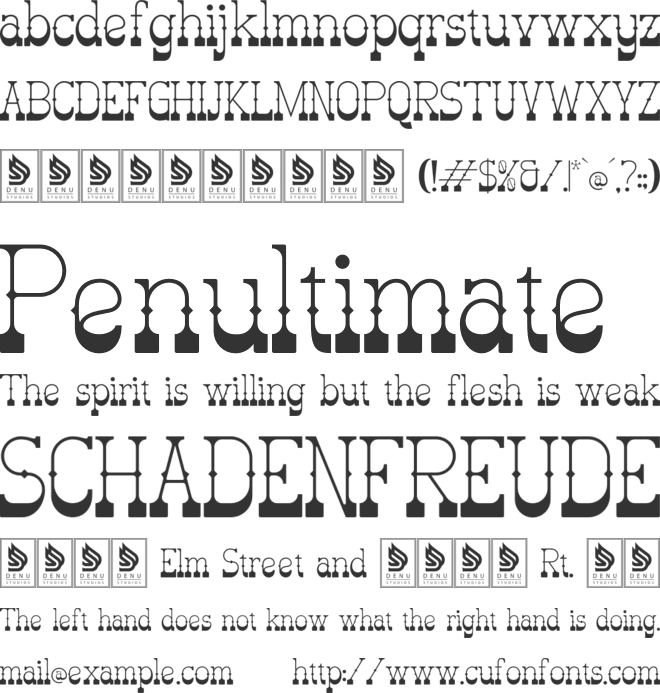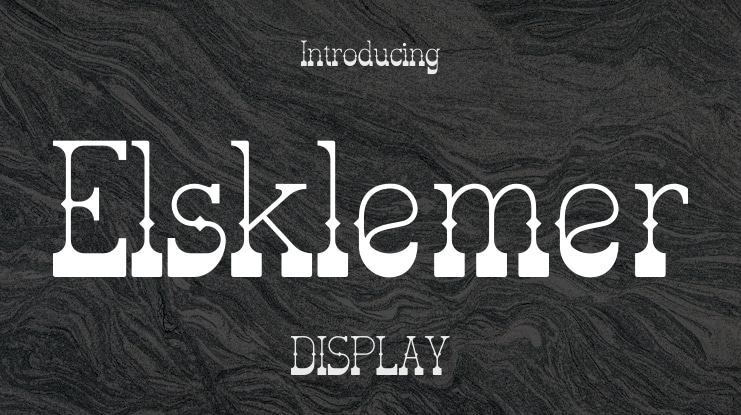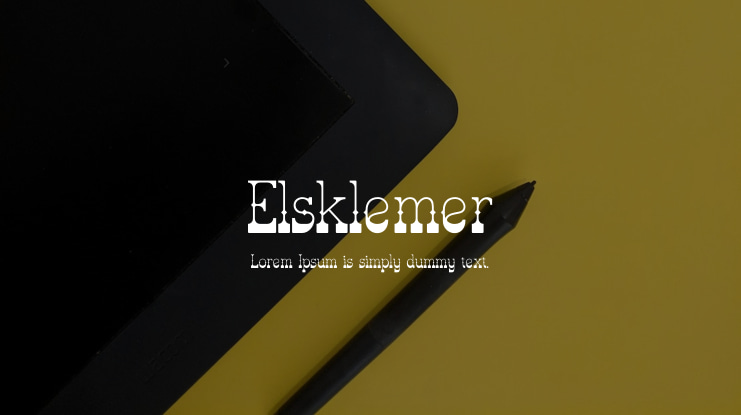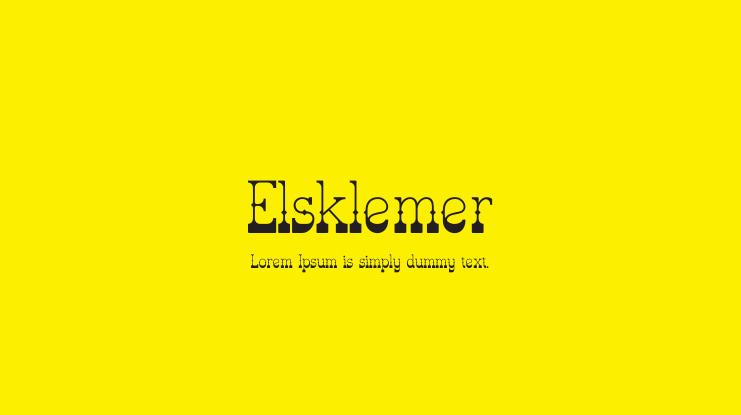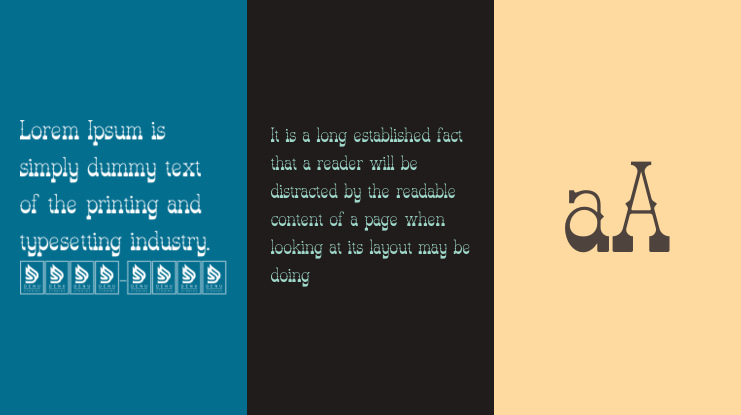
Elsklemer | Western Slab Serif is a versatile font that can be used for various projects including logos, branding, homeware designs, product packaging, quotes, posters, t-shirts, and more, adding a touch of Western Slab Serif style.